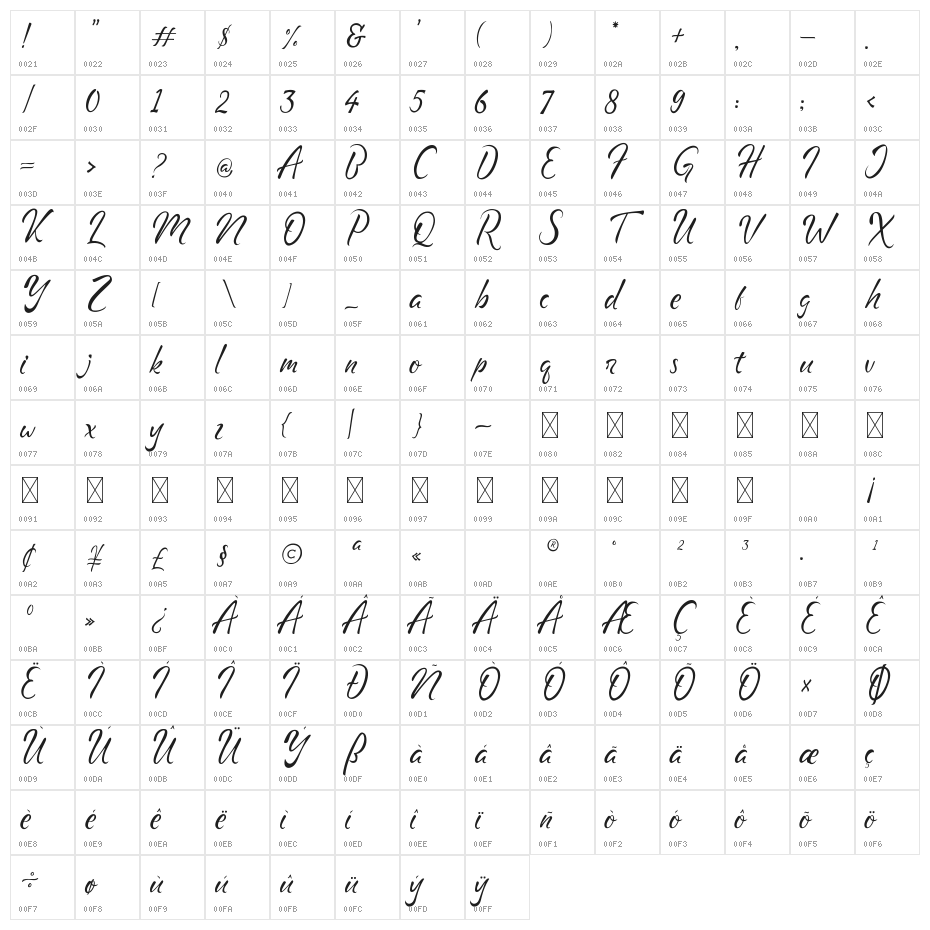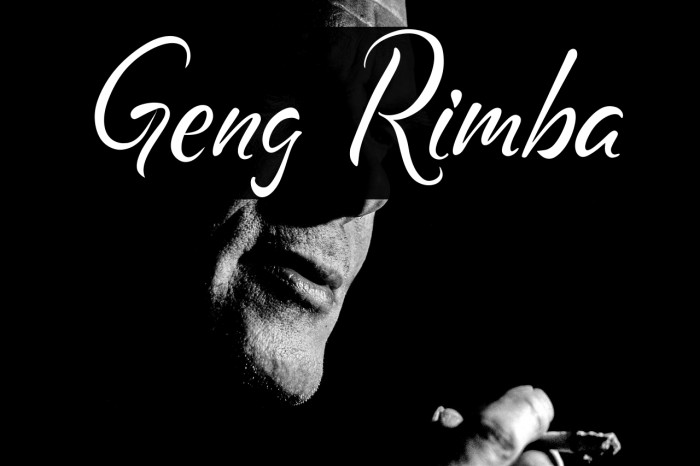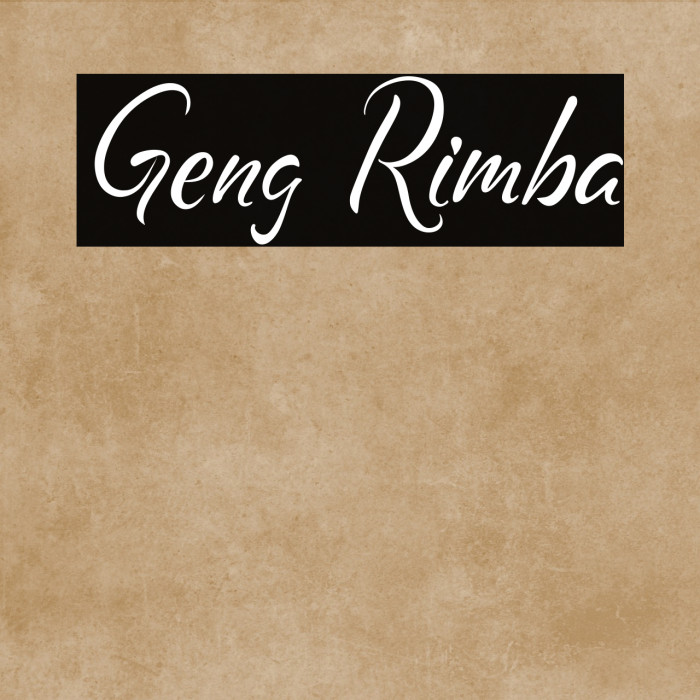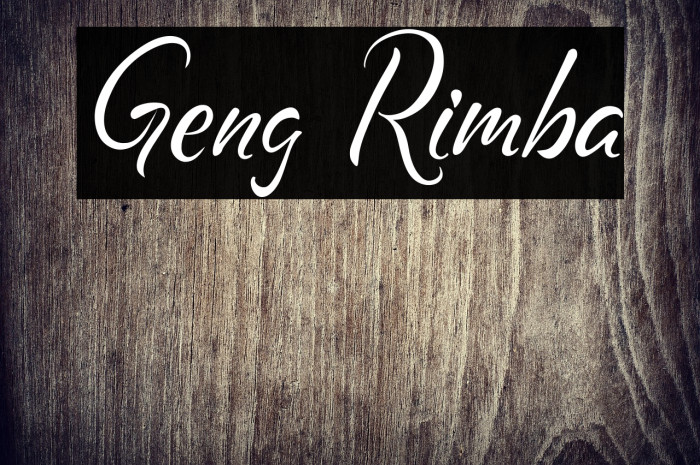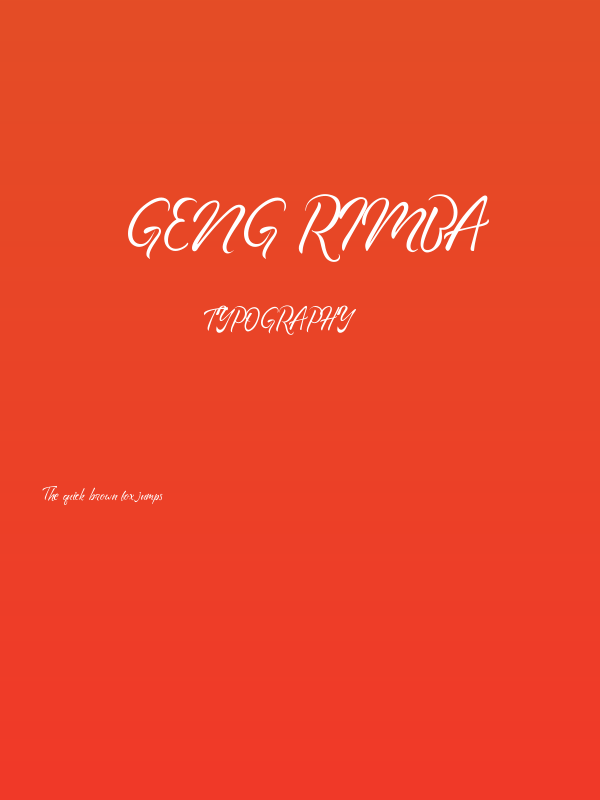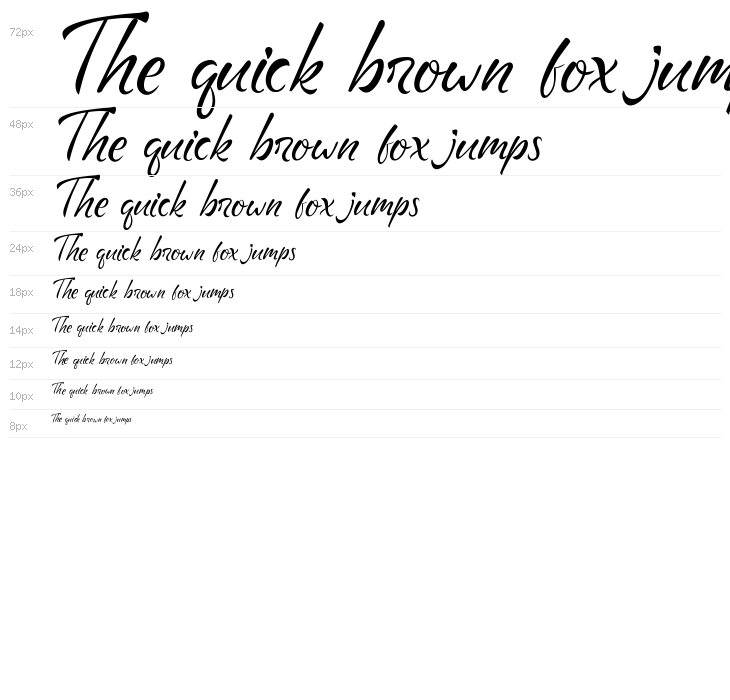
Geng Rimba Font
Geng Rimba Description
This elegant script font features fluid, cursive strokes that create a sense of movement and grace. The uppercase letters are tall and slightly slanted, with intricate loops and swirls that add a touch of sophistication. The lowercase letters maintain a consistent flow, with smooth connections between each character. The numerals are stylish and complement the overall script style, while the special characters are designed to match the font's elegant aesthetic. This font is perfect for projects that require a touch of elegance and formality.
| Overall Style | Elegant |
| Use Case | Logos, Invitations, Decorative text |
| Proposed Projects | Ideal for wedding invitations, elegant branding, greeting cards, and formal event programs. |